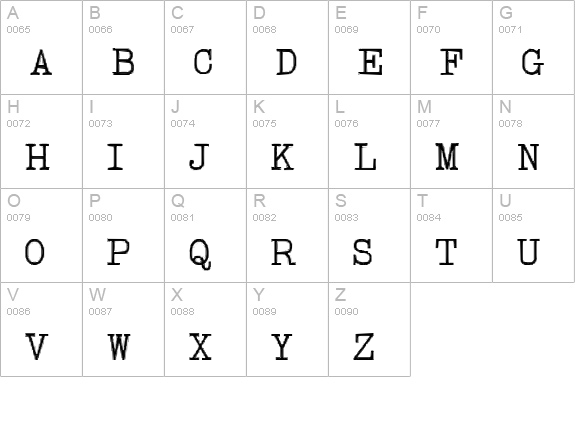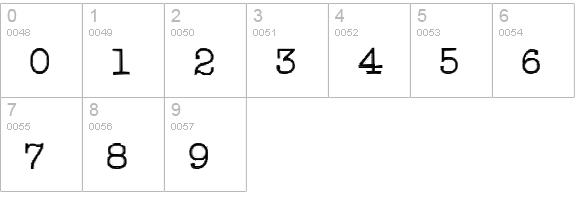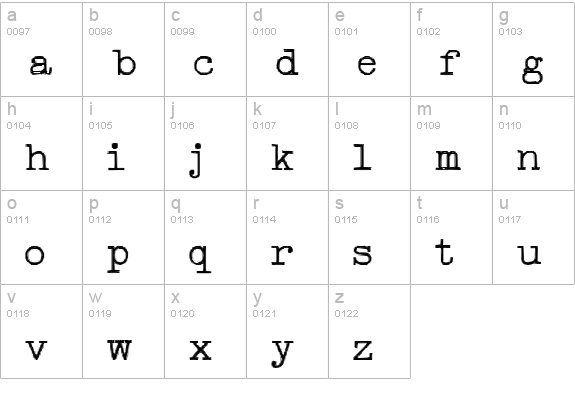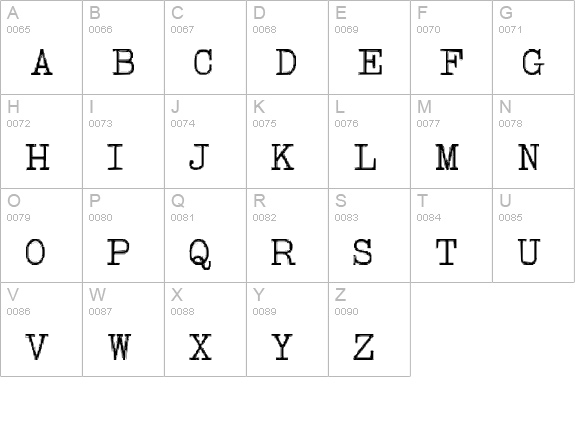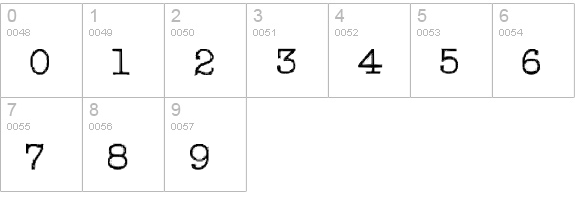
Type right! Font Details
Introducing Type right! font, a stunning and versatile typeface that is sure to make your designs stand out from the crowd. With its clean and modern lines, Type right! font is perfect for a wide range of projects, from branding and logo design to web and print materials. What sets Type right! font apart is not only its exceptional design, but also its accessibility. This font is freely available to download at FontsMarket.com, making it an ideal choice for designers and creatives on a budget. Whether you're working on a personal project or a professional assignment, Type right! font offers a vast array of characters and glyphs, ensuring that you have the flexibility to create unique and eye-catching designs. Its smooth curves and balanced letterforms bring a touch of elegance and sophistication to any project, while its legibility ensures that your message is conveyed with clarity and impact. Additionally, Type right! font comes in a variety of weights and styles, allowing you to effortlessly customize your designs and achieve the perfect aesthetic for your project. From bold headlines to delicate body text, this font has you covered. Download Type right! font for free today at FontsMarket.com and unlock the potential to create stunning and professional designs that truly make a statement. Don't miss out on this incredible opportunity to elevate your typography game and bring your vision to life.